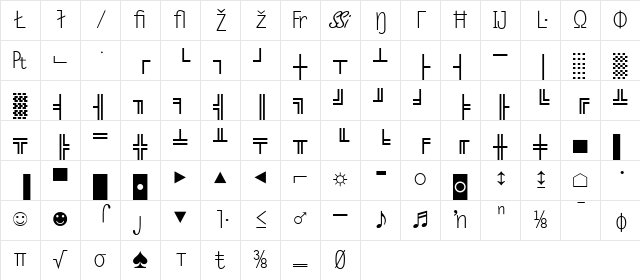
Micro Pi One SSi Normal
Design Context for Micro Pi One SSi
Micro Pi One SSi is a composed and adaptable typeface that performs quietly and consistently across a wide range of design contexts.
Pro Tip: Use Micro Pi One SSi in both headline and body roles to test its range before committing to a single application.